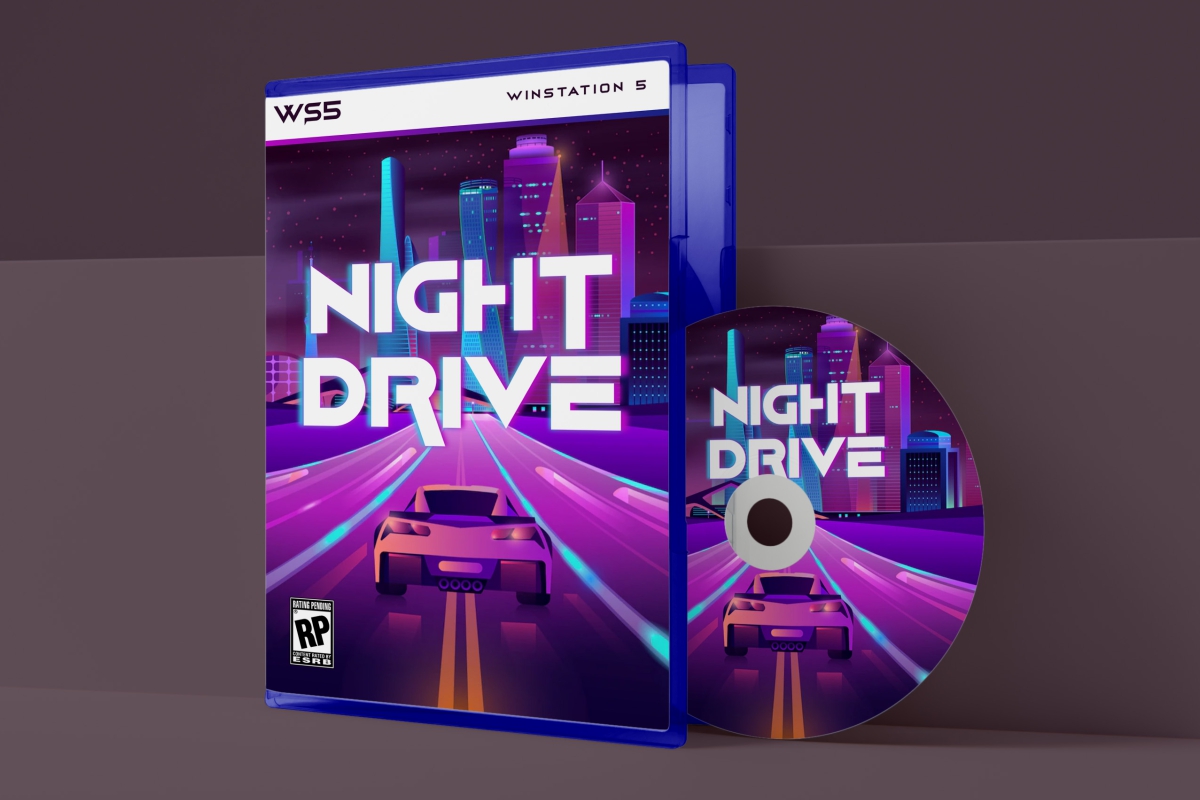
Counter Stream Font
Counter Stream Display Font
This is a futuristic display font created by EdricStudio, inspired by the virtual world “Metaverse”, in the era of rapidly developing technology. Almost all industries will be match for this typeface including: apparel, automotive, electronic, fashion, game, race, technology, etc.